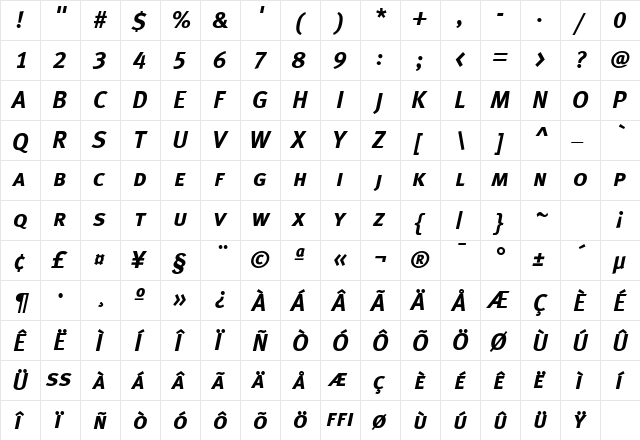
MetaPlusBold CapsItalic
Design Context for MetaPlusBold Typeface
MetaPlusBold is a composed and adaptable typeface that performs quietly and consistently across a wide range of design contexts. The dynamic lean of this cut emphasises speed and emphasis in any layout. The heavy weight commands attention and anchors typographic hierarchies.
Pro Tip: Use MetaPlusBold for emphasis, pull quotes, and subheadings where its slanted energy can add rhythm to the layout.